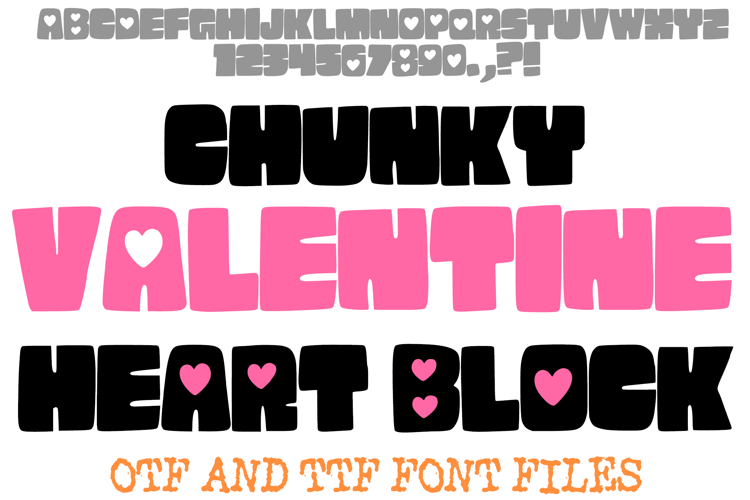
Chunky Valentine Heart Block Font Cartoon Typeface Letters
Make a bold statement this season of love with the Chunky Valentine Heart Block Font! This high-impact display typeface features thick, solid black characters with a charming, hand-drawn "blocky" aesthetic. The standout feature is the delicate white hearts integrated directly into the centers of the letters and numbers, creating a beautiful "cutout" effect that is perfect for Valentine's Day designs.
The heavy weight of these letters ensures maximum visibility from a distance, while the internal heart details—ranging from single to double hearts per character—provide a sweet touch. Whether you are designing high-contrast social media graphics, festive apparel, or custom greeting cards, this font offers a perfect blend of modern strength and romantic whimsy.